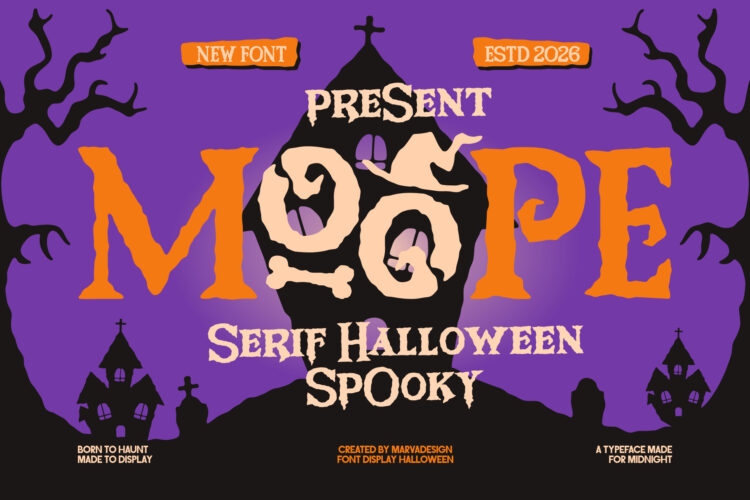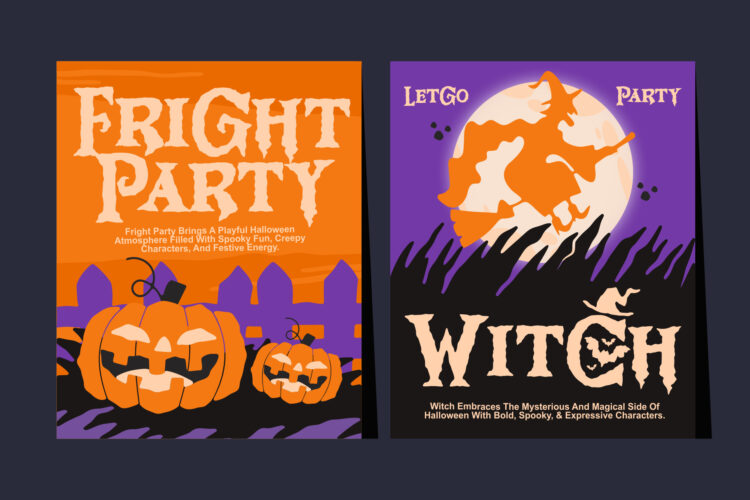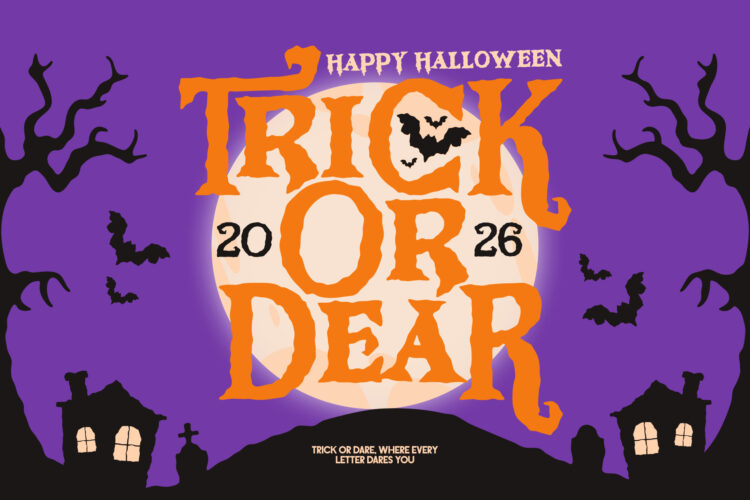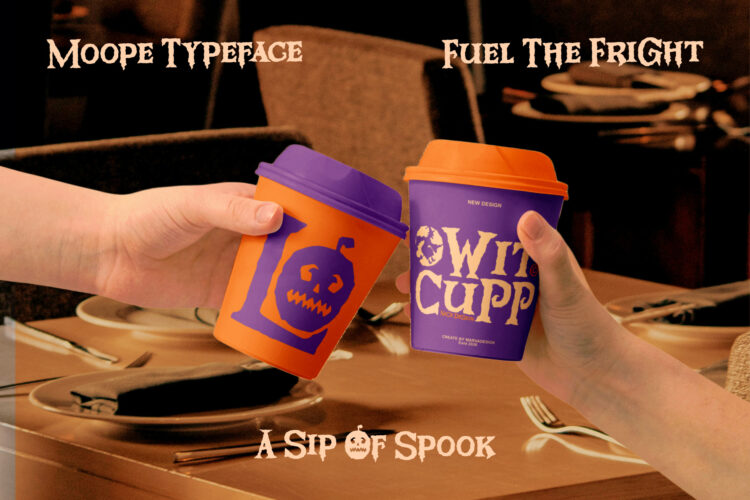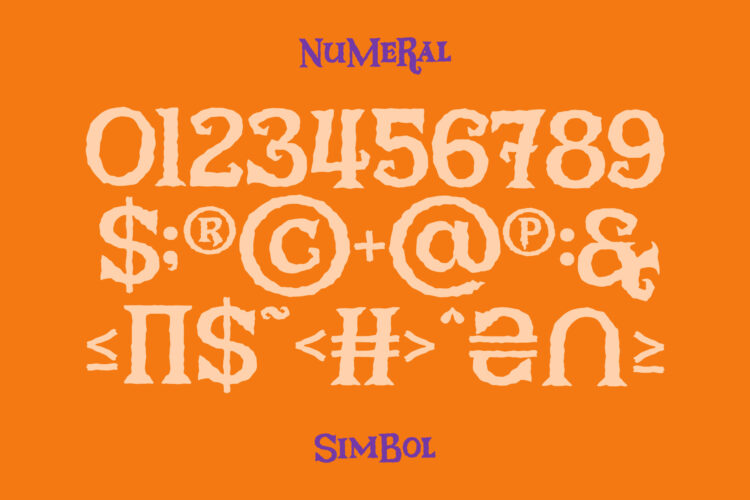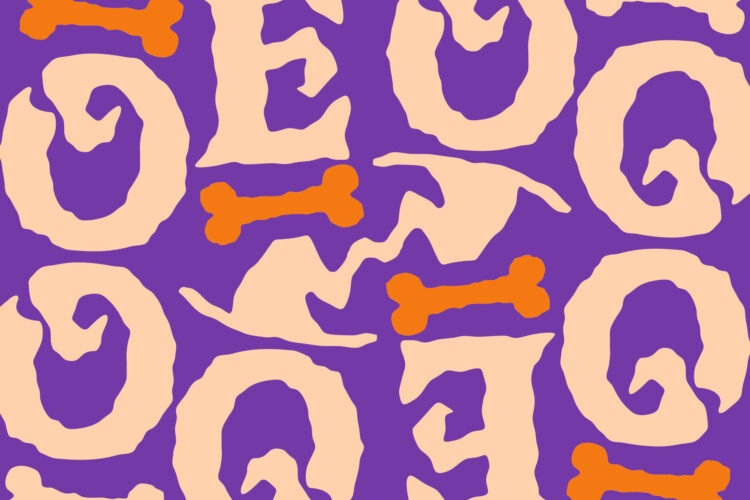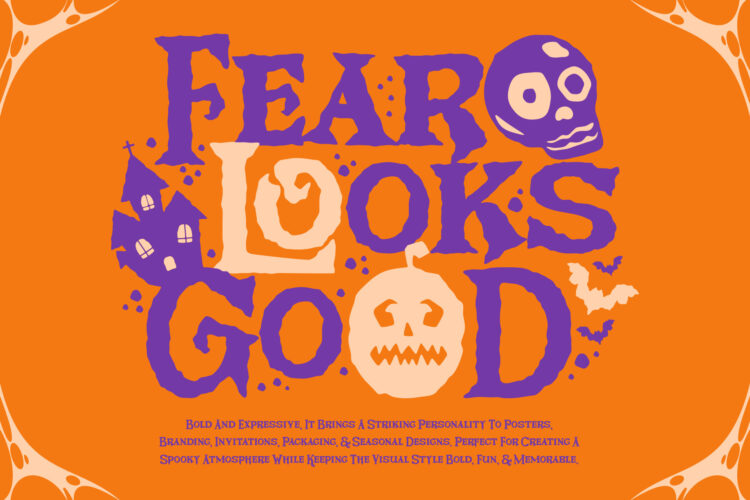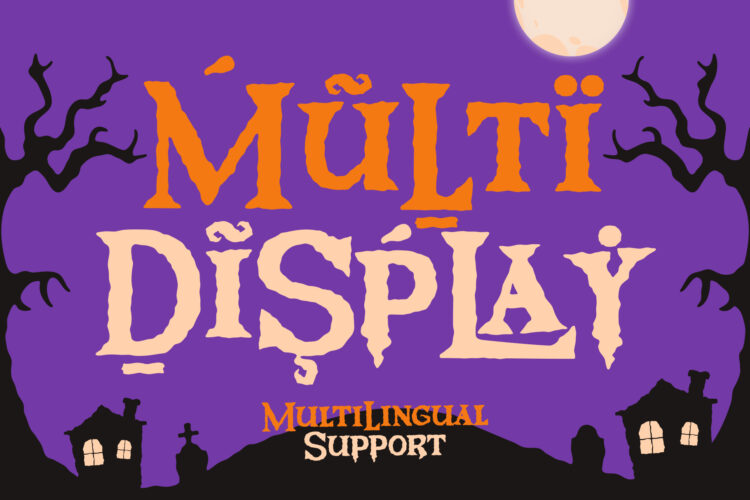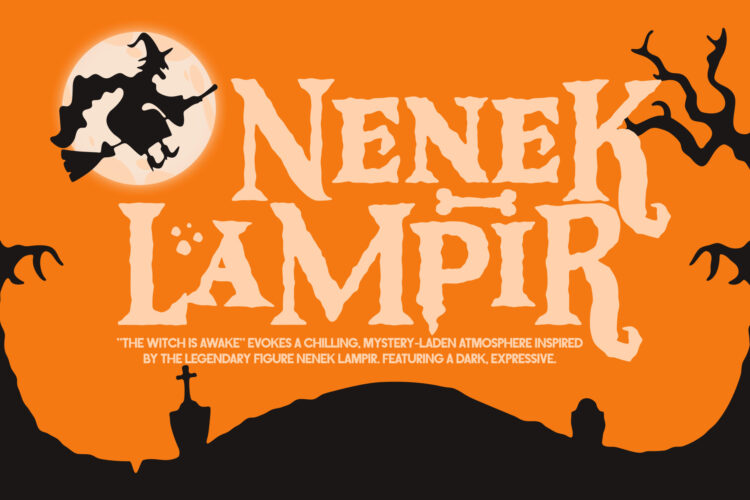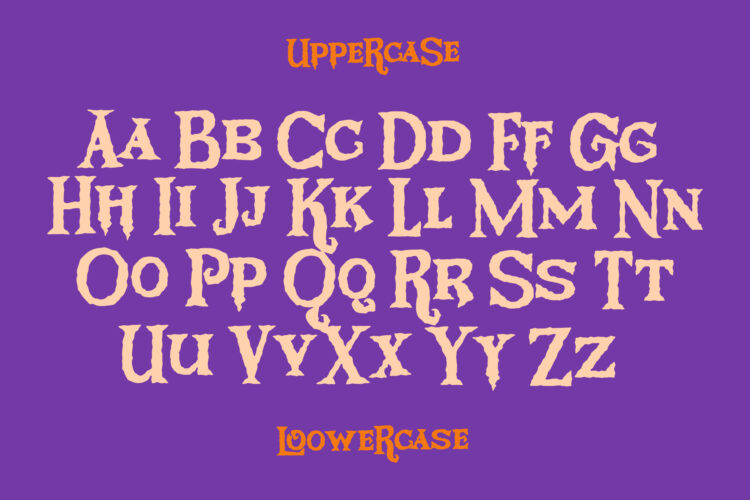
MOOPE is a bold, whimsical, and spooky Halloween-themed display typeface designed to evoke a playful yet mysterious atmosphere. Featuring thick, uneven letterforms with jagged edges and sharp, bone-like or claw-like serif accents, it perfectly captures the eerie essence of midnight festivities, witches, and haunted tales. The typeface balances a dark visual weight with a fun, expressive character structure.